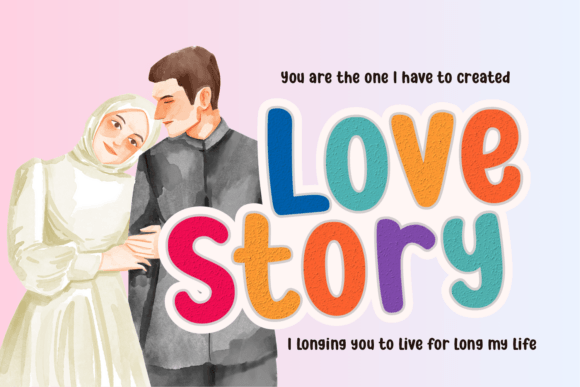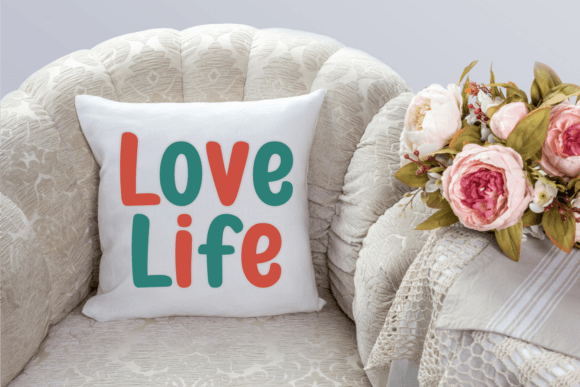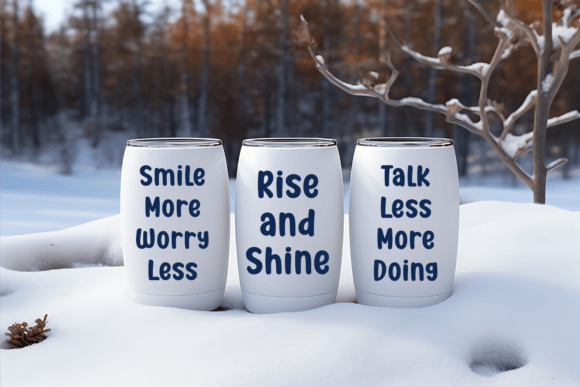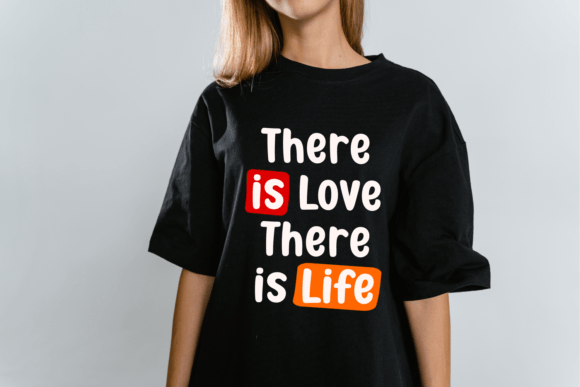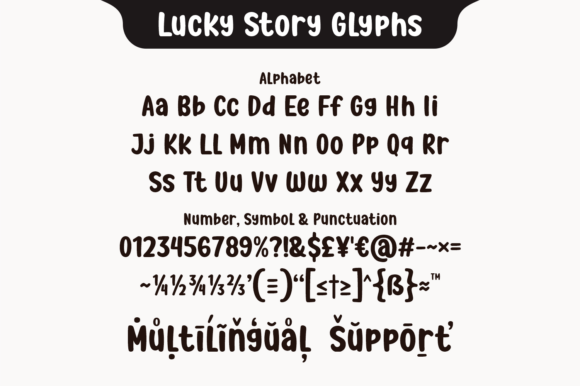
Introduction to Lucky Story Font Font
Fonts play a crucial role in design, and the Lucky Story Font font is a typeface that brings both character and versatility to any project. Whether you’re working on a branding project, a website, or a print design, the Lucky Story Font font offers a unique style that can elevate your work.
Introducing Lucky Story, a beautifully bold comic font that gracefully sidesteps the notion of gaudy.
Its charismatic letters are designed with an aesthetic touch that seamlessly integrates with any form of graphic design Not limited to just design work, Lucky Story gracefully struts its style on apparel and book covers.
Key Features of Lucky Story Font Font
Why Choose Lucky Story Font Font?
The Lucky Story Font font is more than just a typeface – it’s a design tool that helps you communicate your message with style and clarity. Its unique character set and versatile design make it suitable for a wide range of applications, from elegant invitations to bold headlines.
With its carefully crafted letterforms and balanced proportions, the Lucky Story Font font ensures readability and visual appeal across all mediums.
What makes Lucky Story Font font special?
The Lucky Story Font font stands out with its unique design, exceptional readability, and versatility across various design applications.